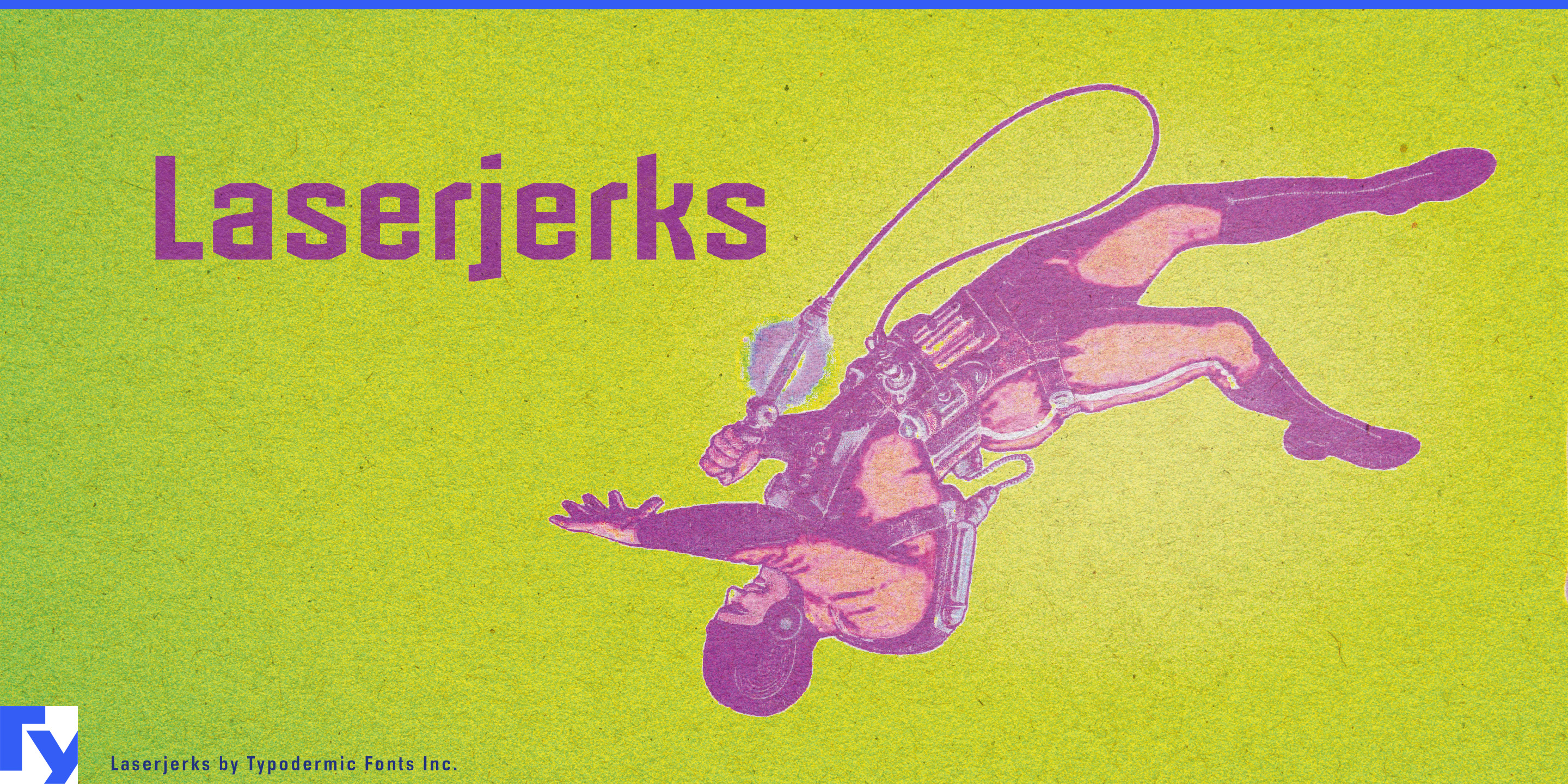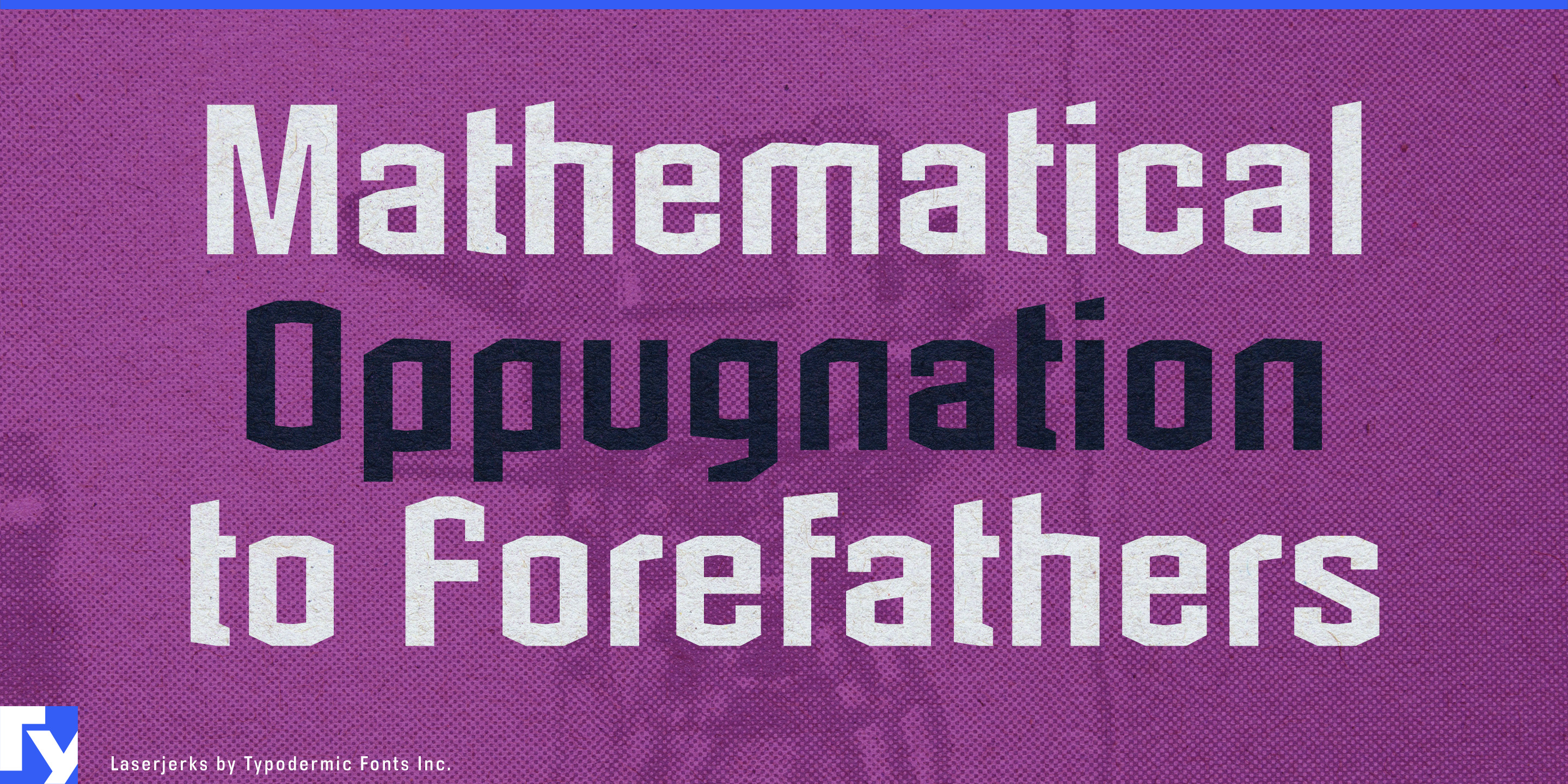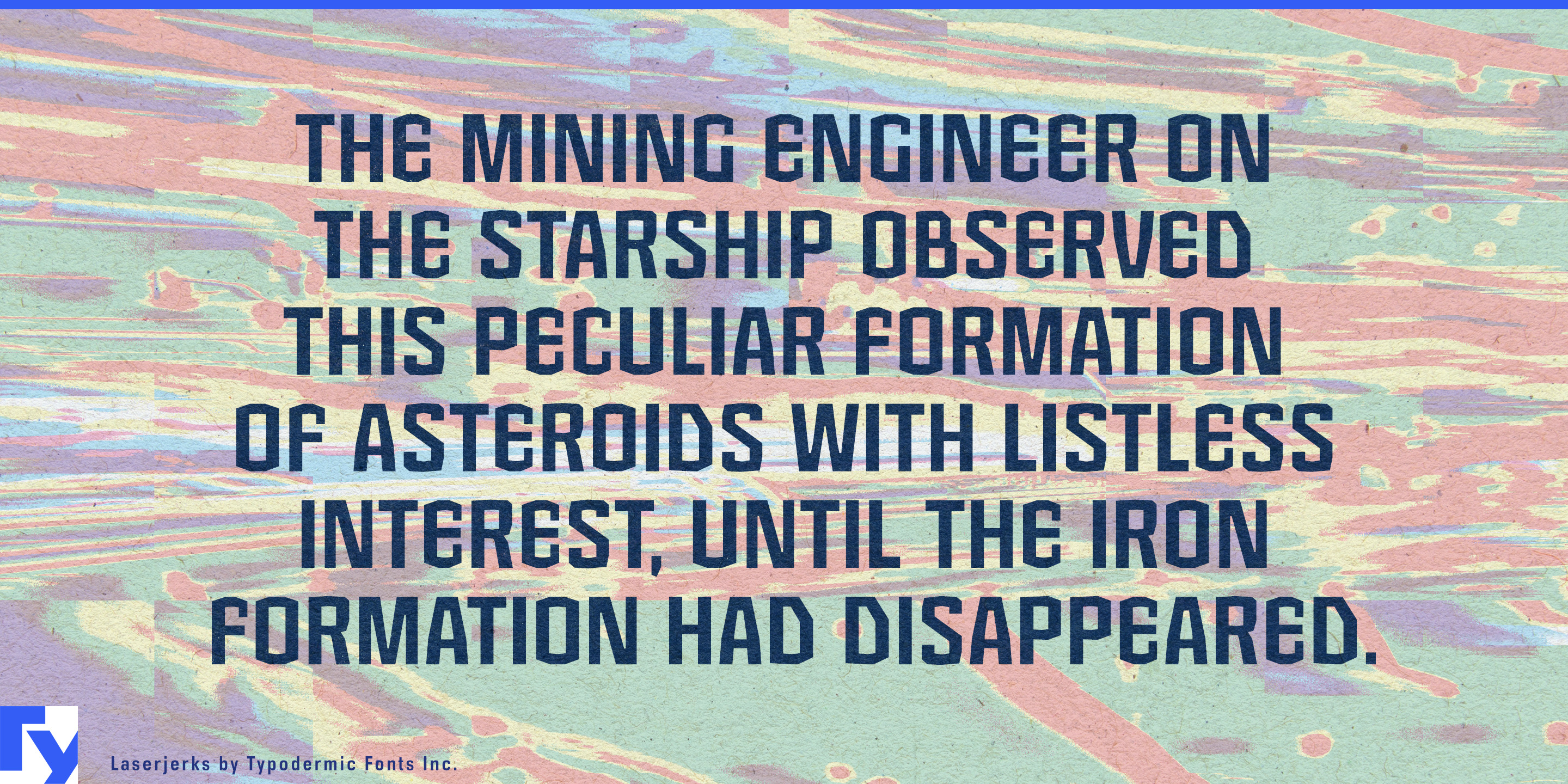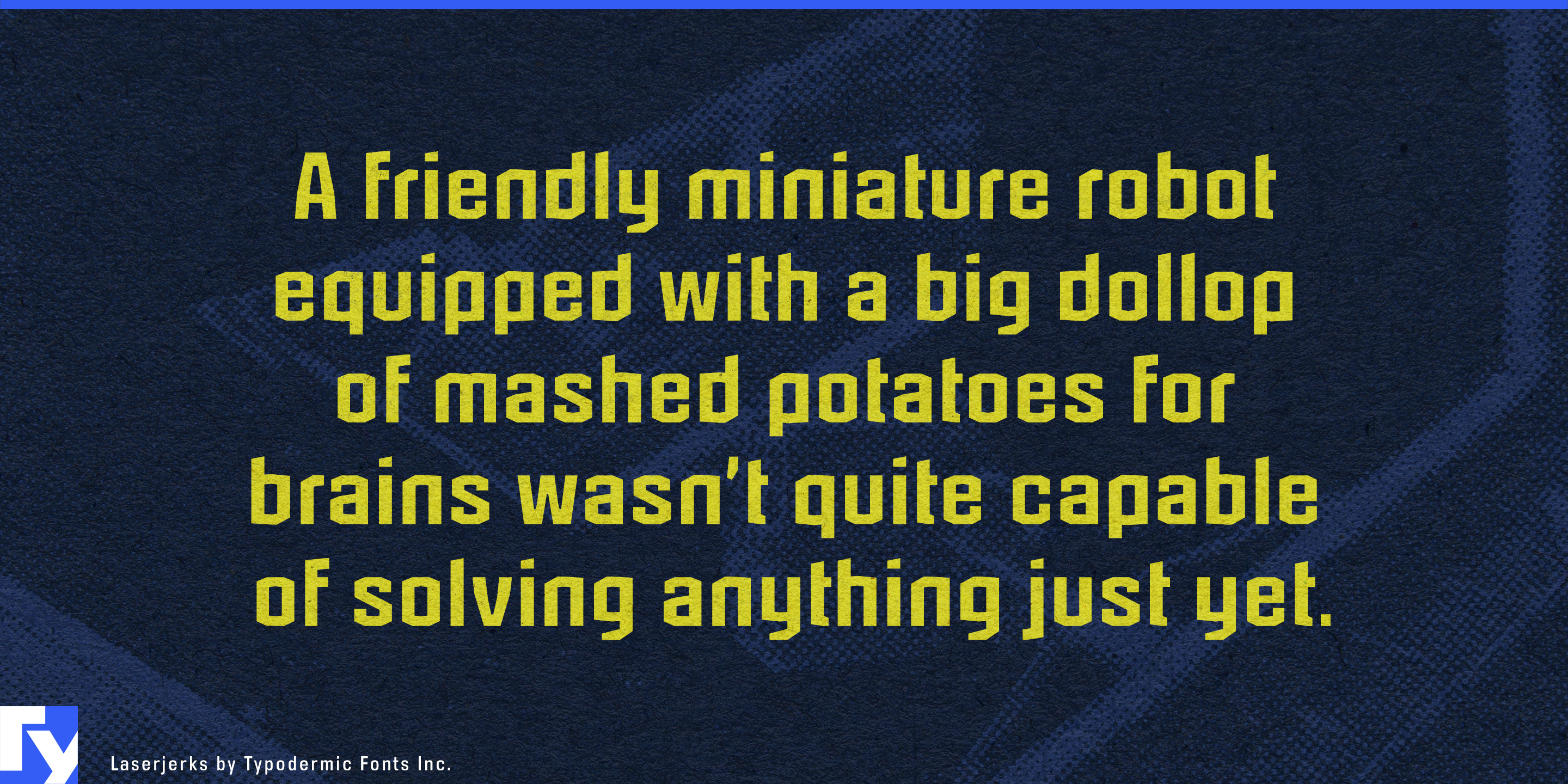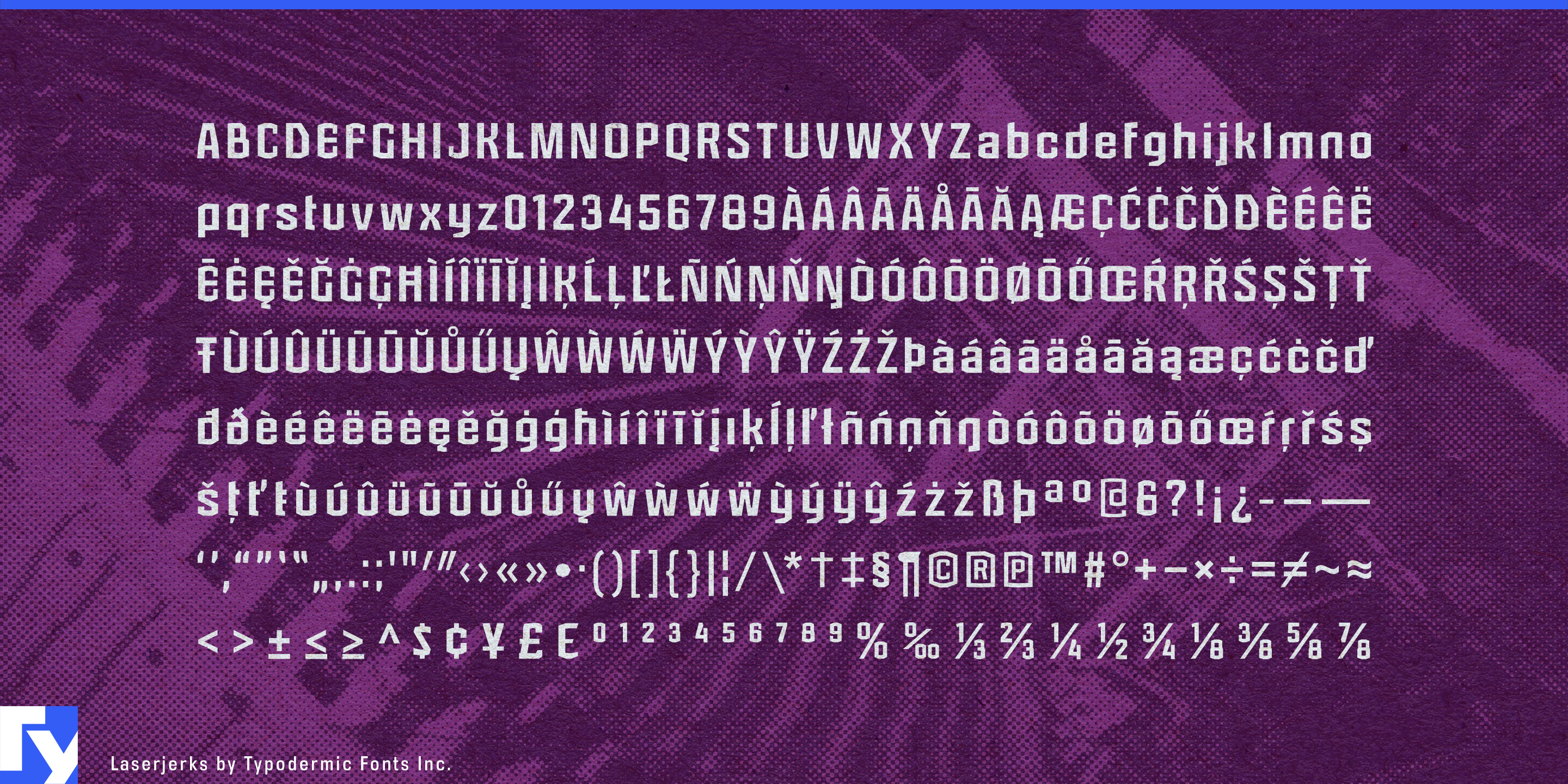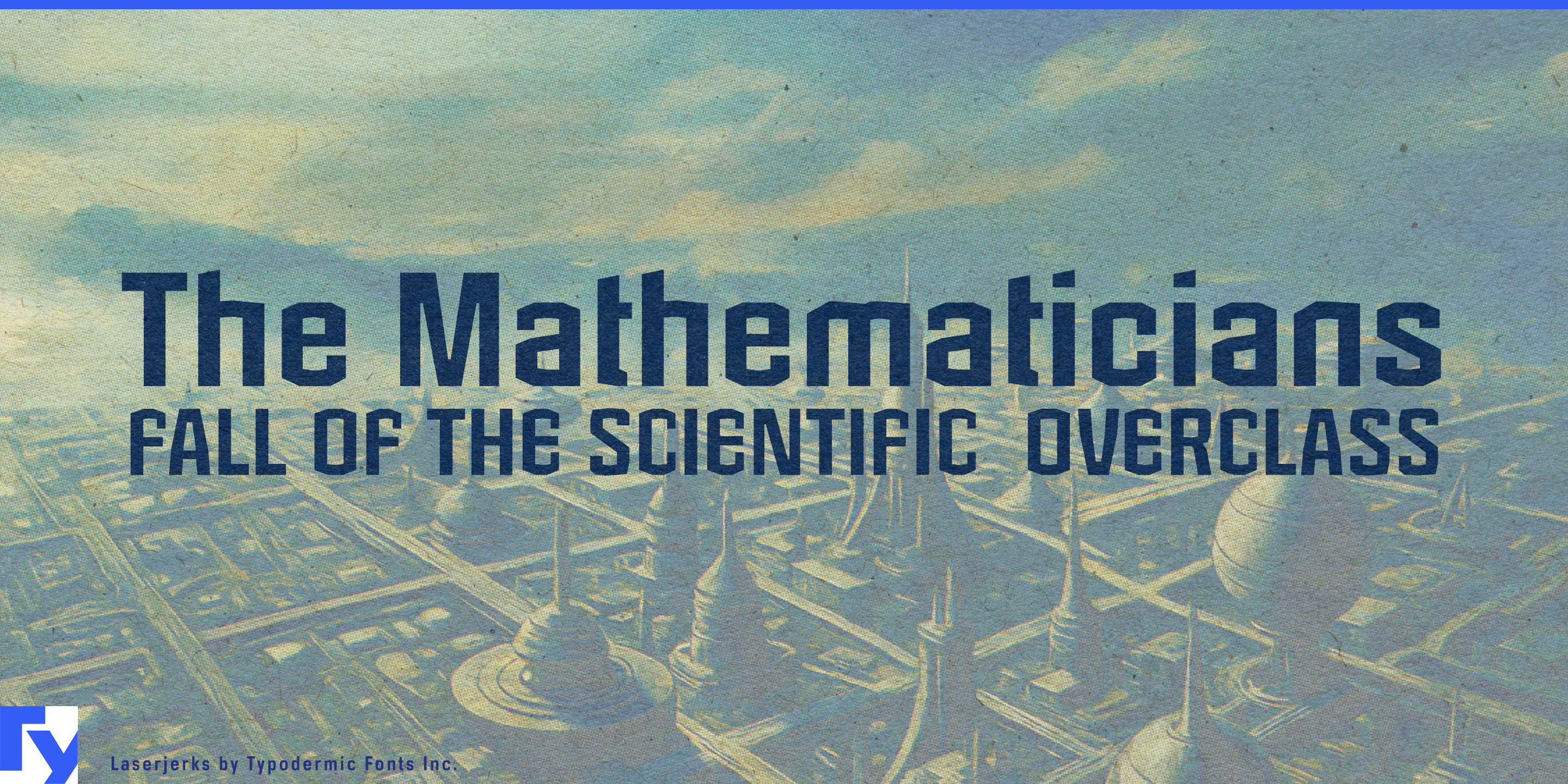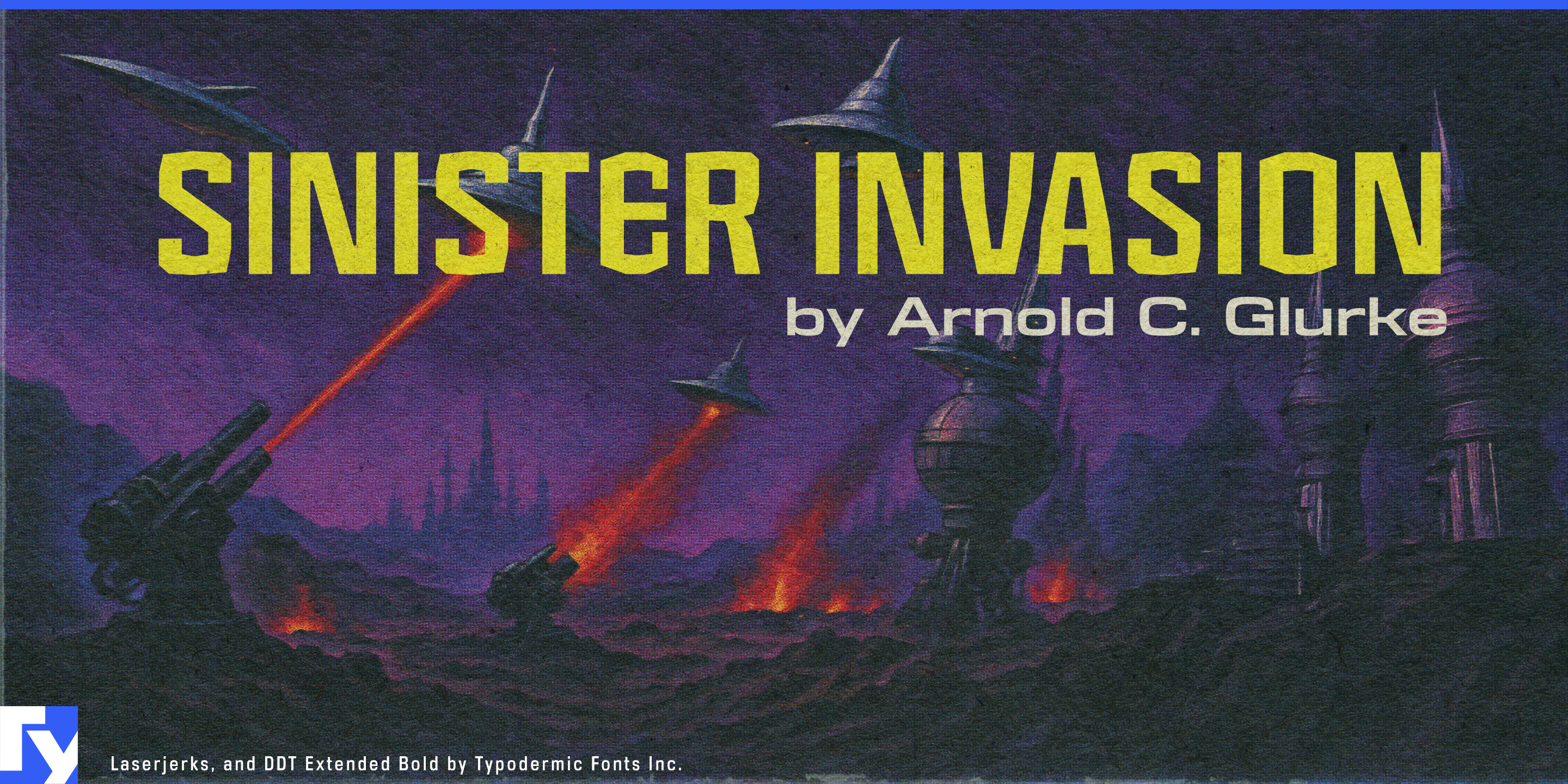
Laserjerks
Laserjerks doesn’t just make an entrance—it takes over the room. Born from a digital blend experiment gone sideways, its jagged geometry and shifting waistlines feel like they were cut from precision-machined plates, then reassembled by a designer with no interest in symmetry for symmetry’s sake. The result is a typeface with just enough instability to keep your eye engaged, yet disciplined enough to deliver its message clearly.
Its polygonal strokes carry the crisp edge of engineered metal, but without tying themselves to any particular design era. That frees Laserjerks from nostalgia—it’s not a retro throwback; it’s a weapon for today’s visual landscape. The off-kilter proportions create a subtle tension in headlines, posters, and logotypes, while its surprising legibility means it can hold its own in dense sci-fi text blocks, experimental editorial spreads, or immersive game interfaces. Laserjerks thrives where convention fails—on science fiction book covers that want to look a little dangerous, on the marquee of an avant-garde theatre, in the branding of a tech startup intent on unsettling the status quo. Its global language support means the same edge works from Berlin to Buenos Aires, Gothenburg to Guadalajara.
If your project calls for clean, neutral type, keep walking. But if you want the calculated friction of modular precision and purposeful imbalance, Laserjerks is ready.